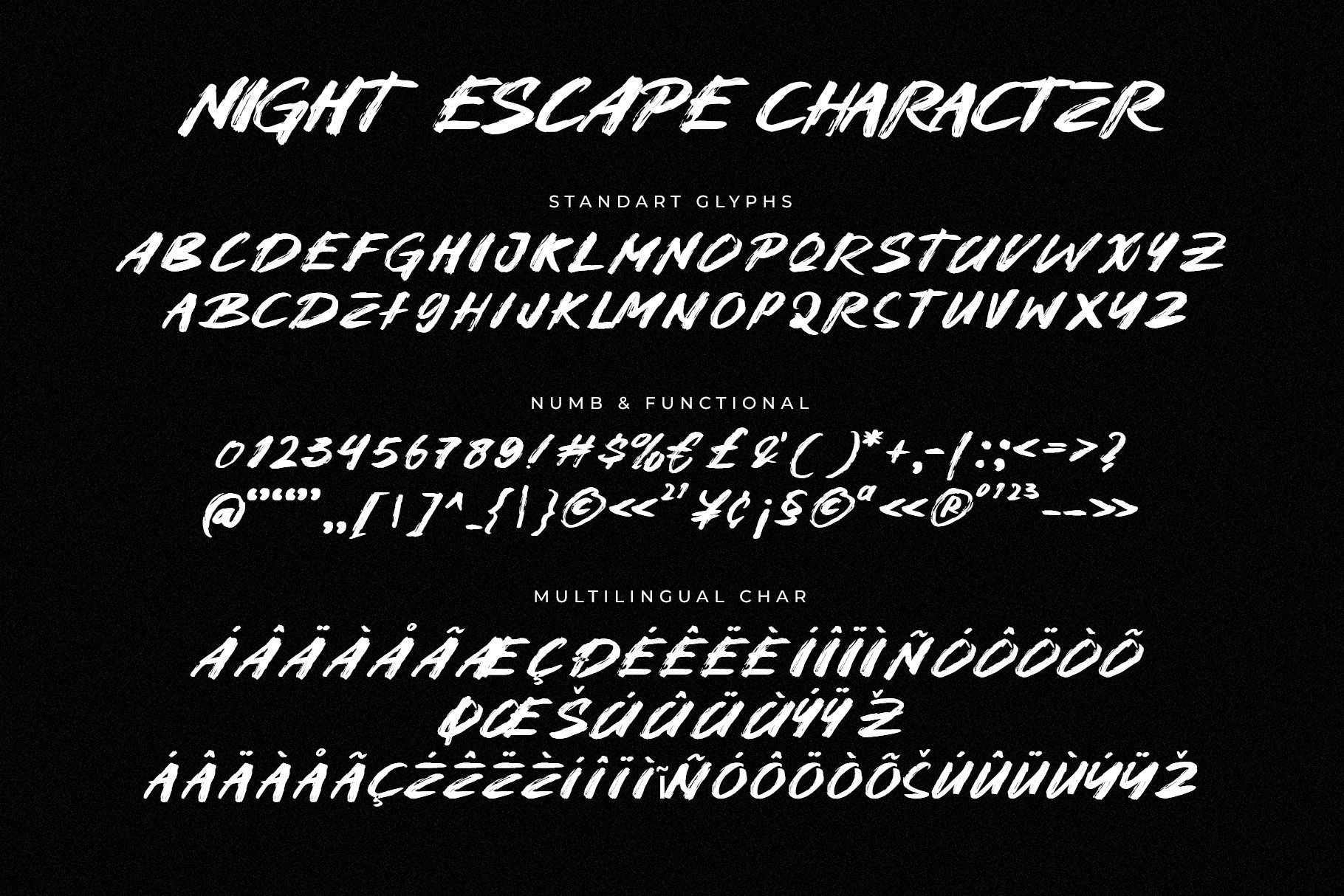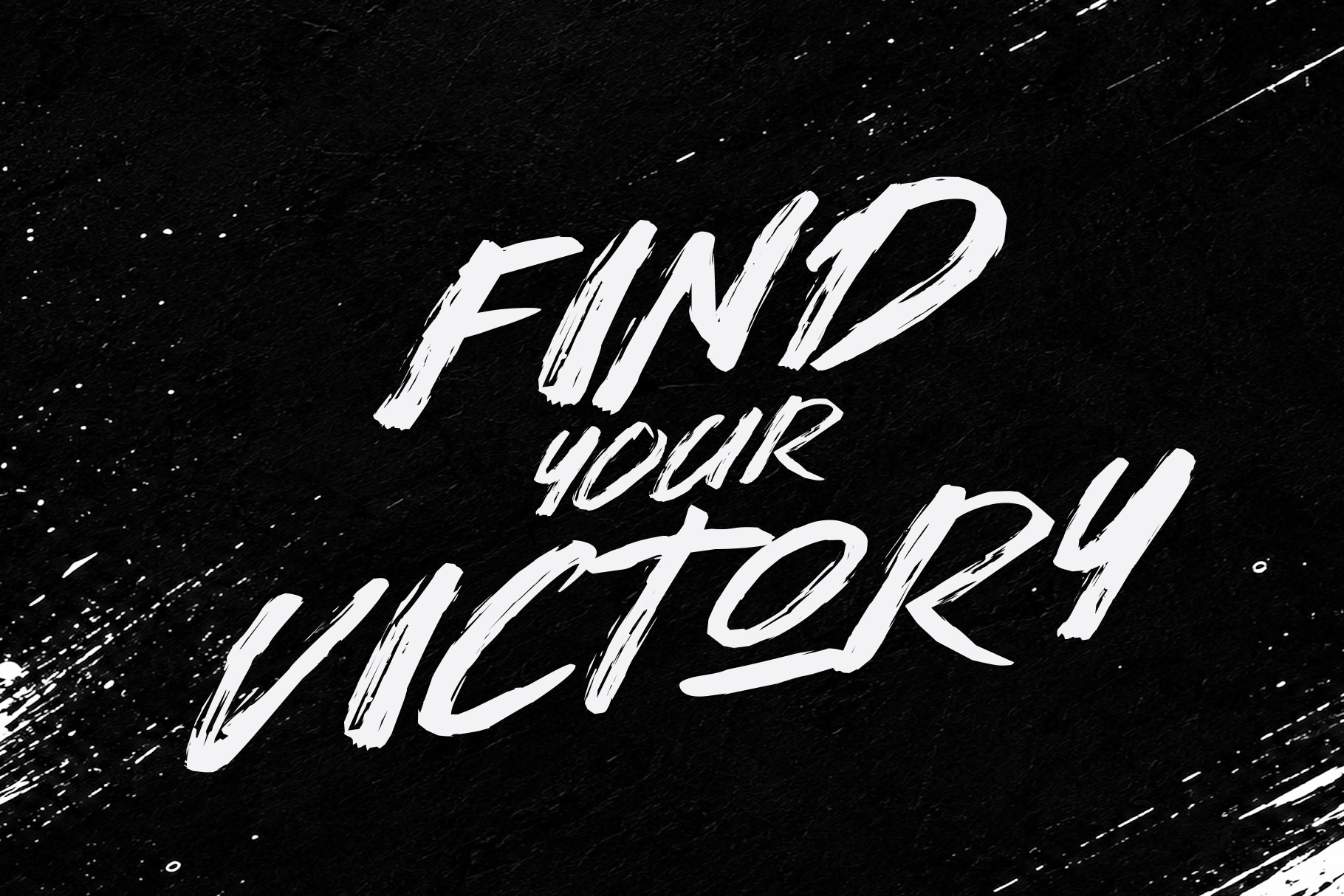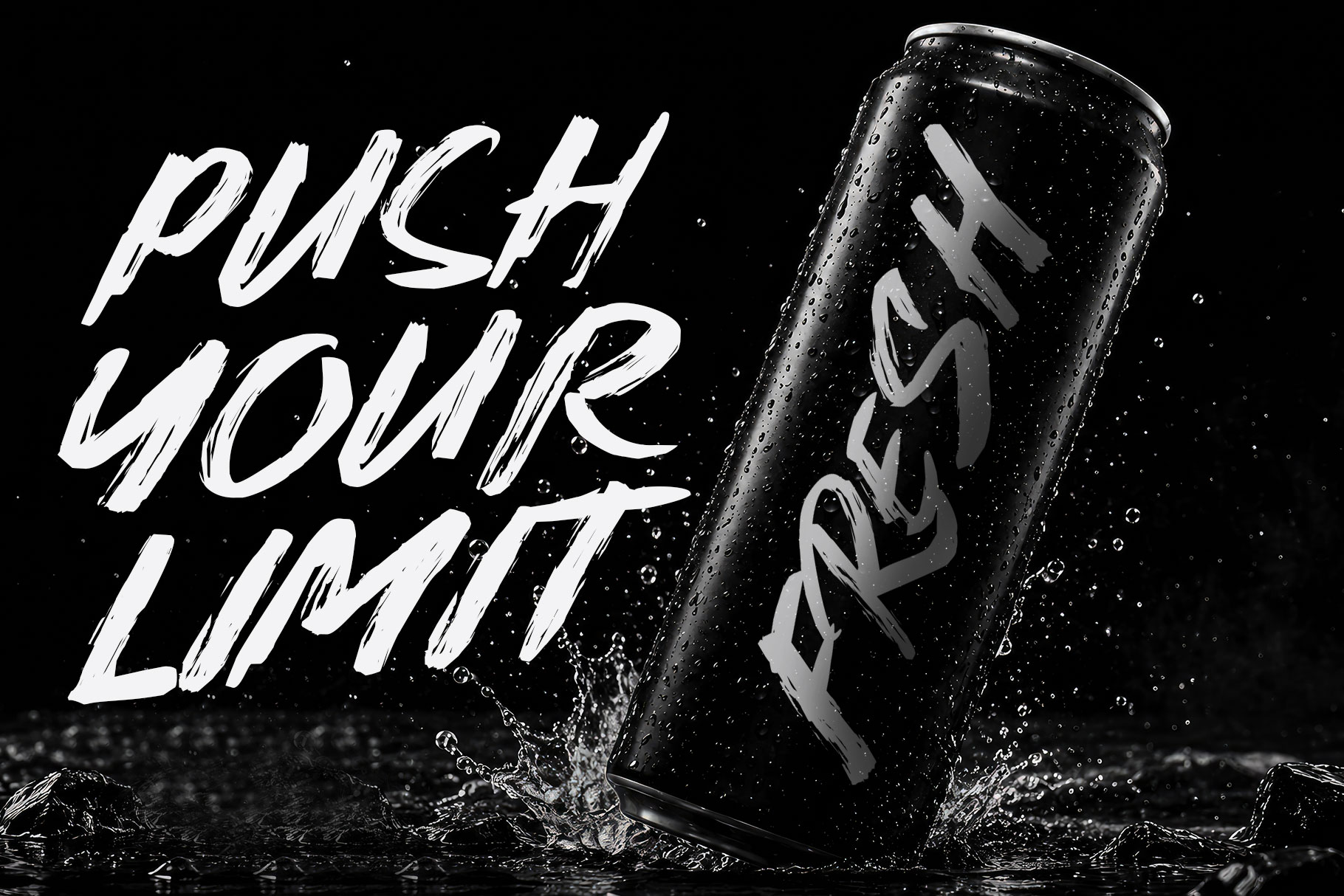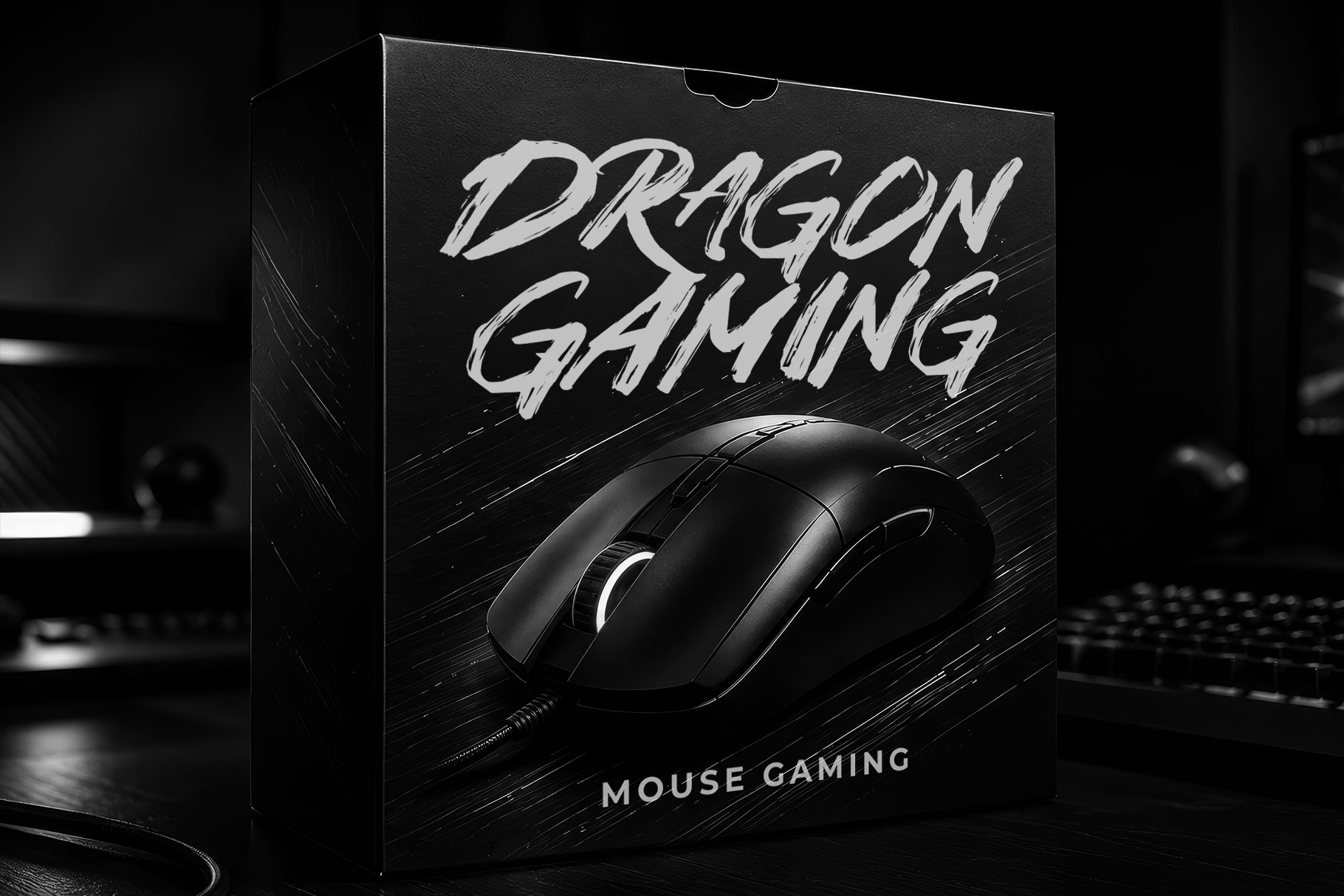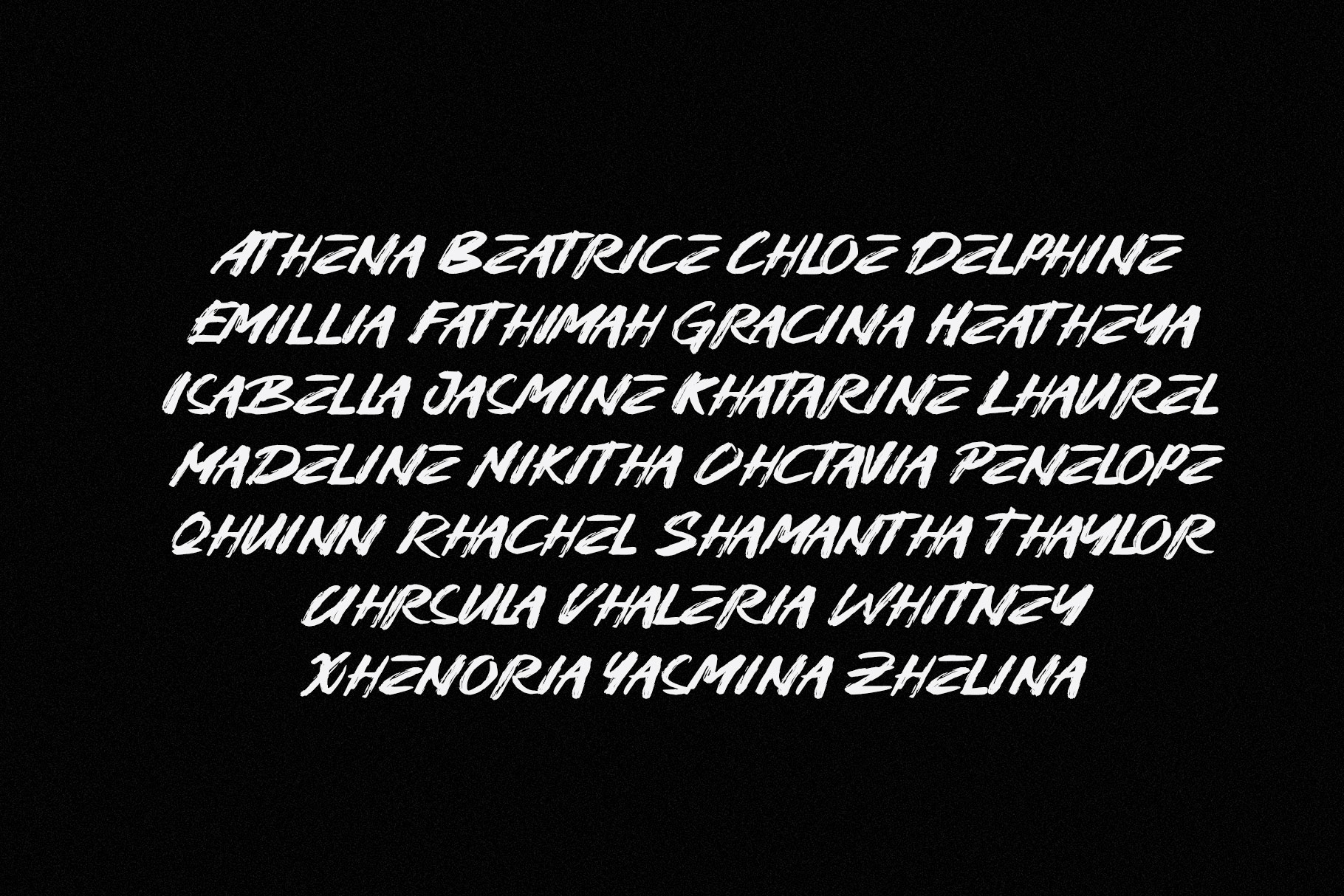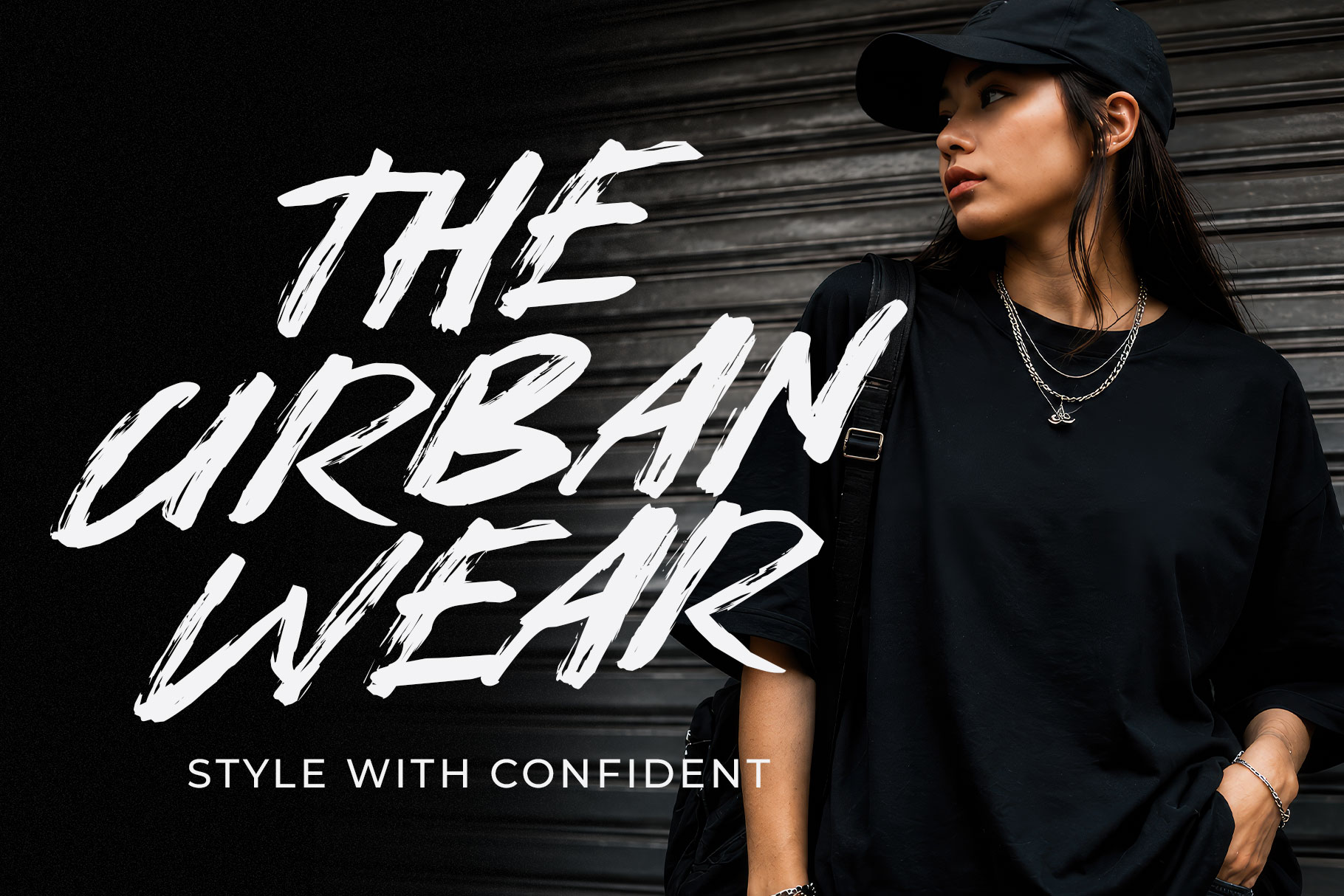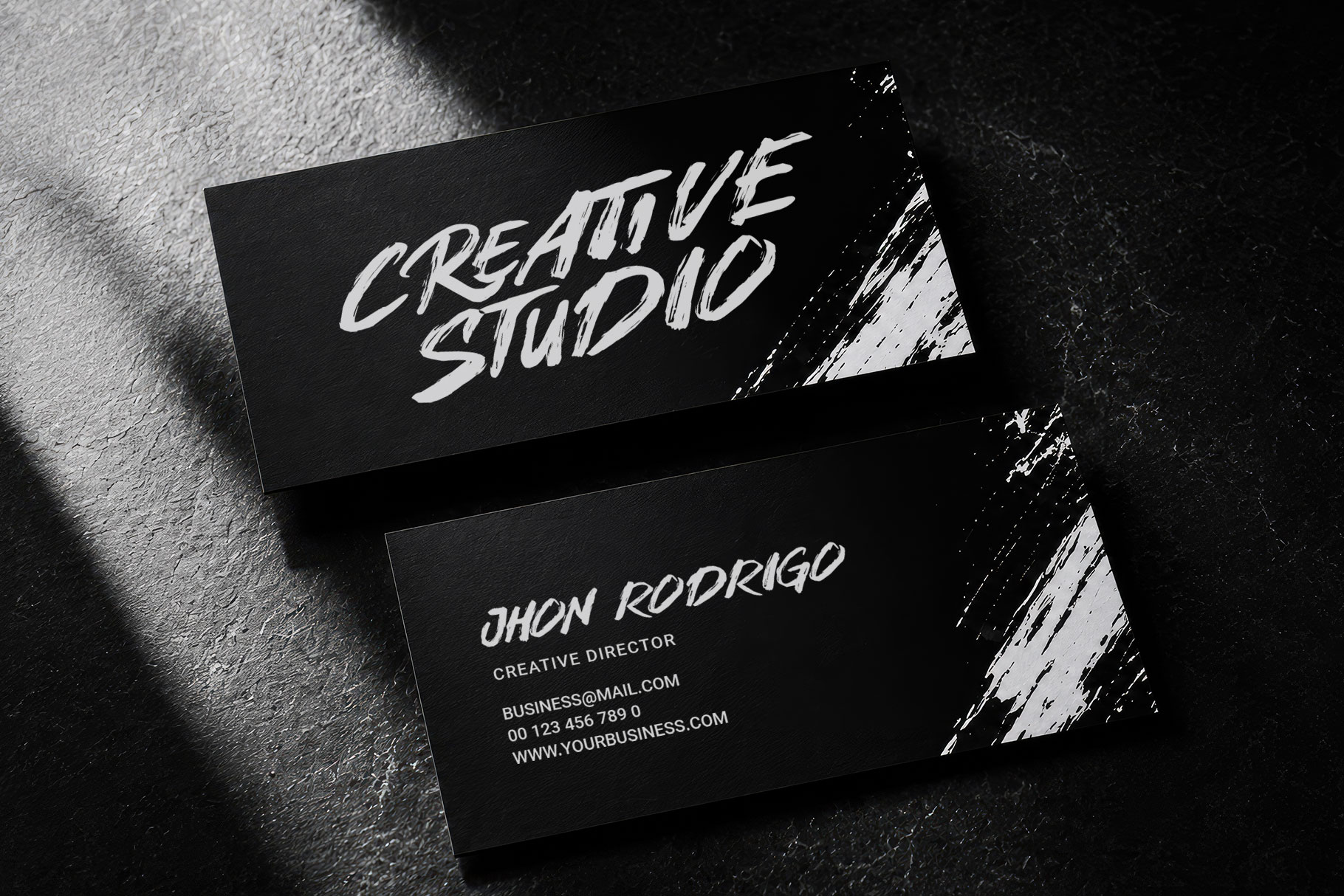
Night Escape is modern brush font captures the spirit of fearless creativity with bold hand-painted strokes. Night Escape is a perfectly choice for any creative endeavor, creating, modern, lifestyle design such as logotype, title, cover, branding, invitations, display and magazine, social media posts, advertisements, printed quotes, product packaging, corporate brand, product designs, labels, photography, watermarks, special events and any other project with modern touch.